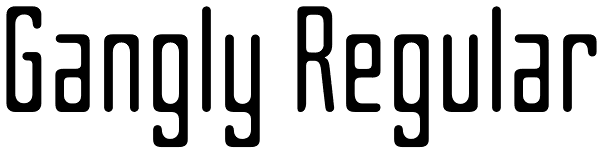
Gangly
Gangly originated from the wall of a department store parking garage in San Diego, California in the early 1990s. Developed into a full-grown typeface by the unconventional mind of Joe Polevy, the lanky letterforms were used in their infancy by...